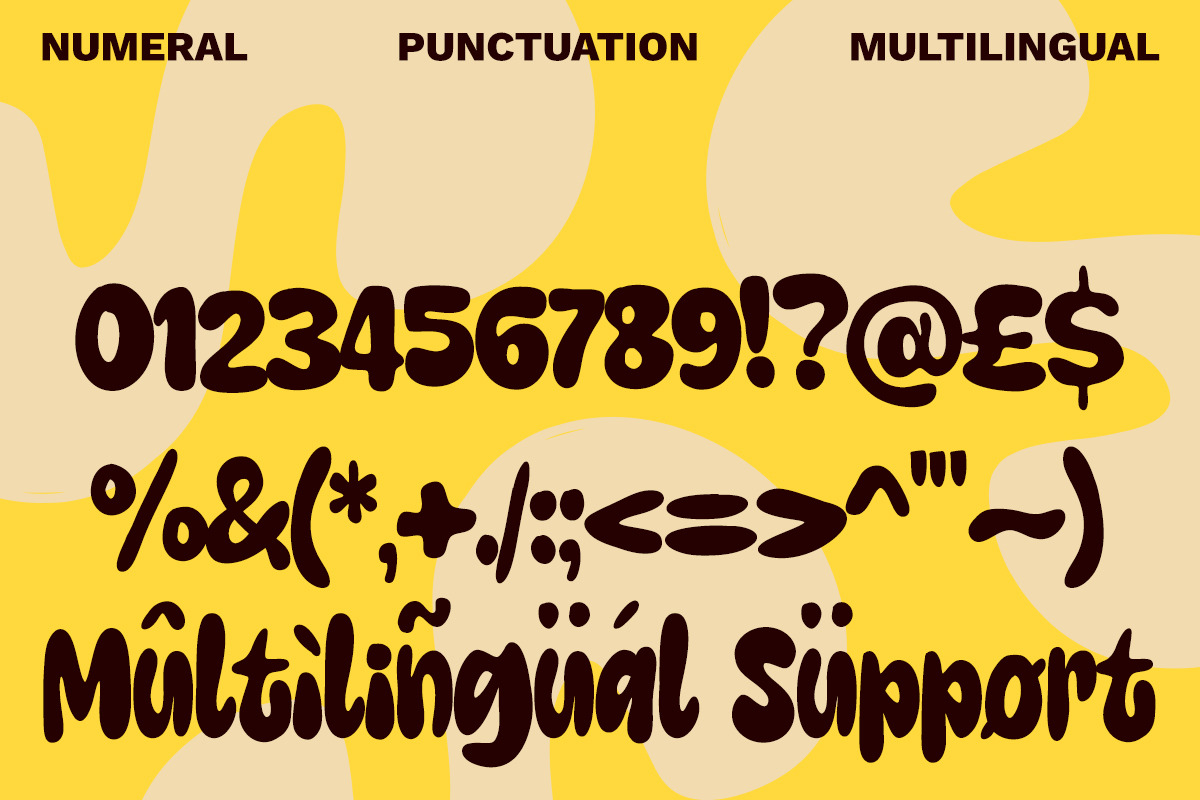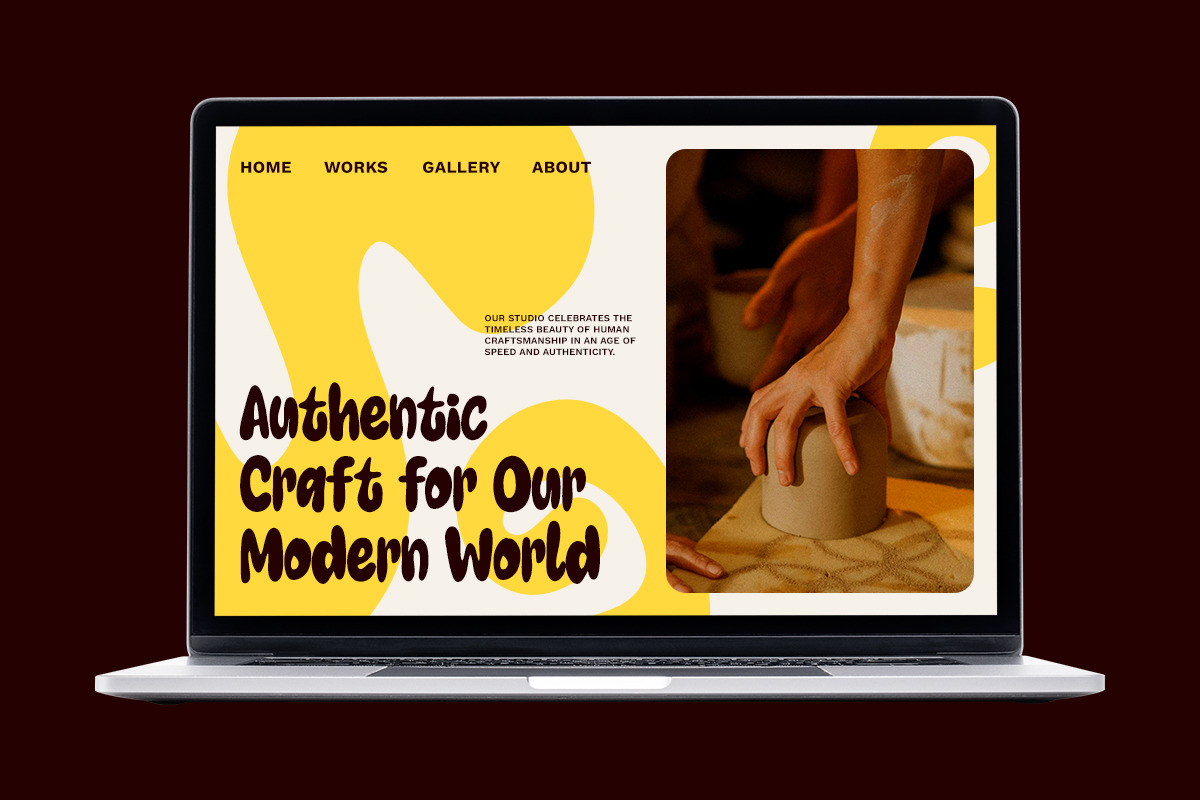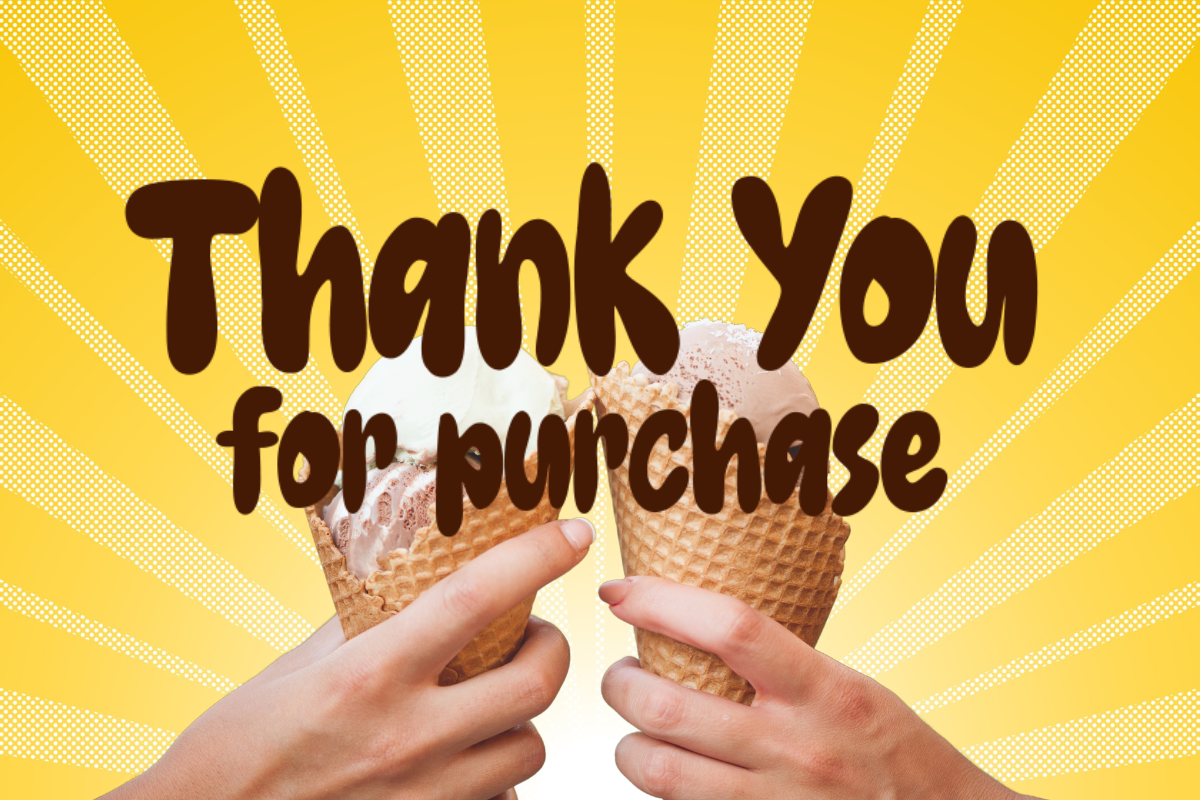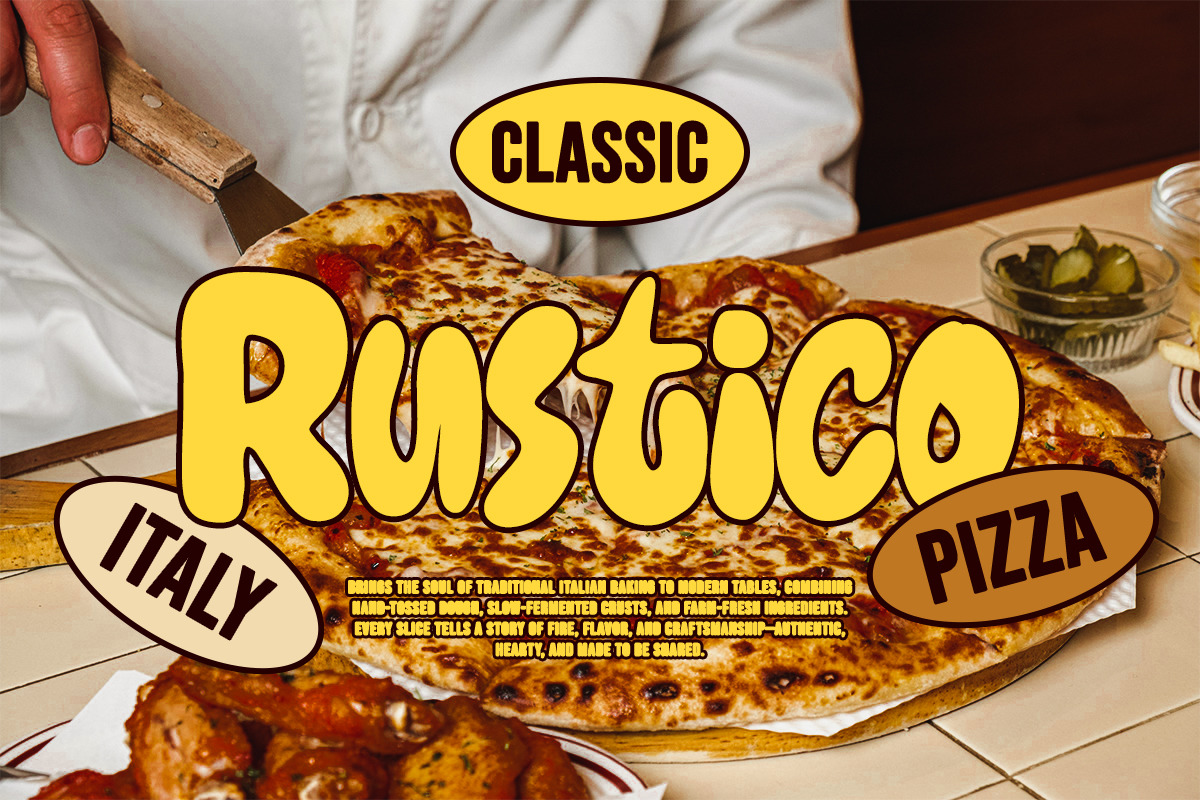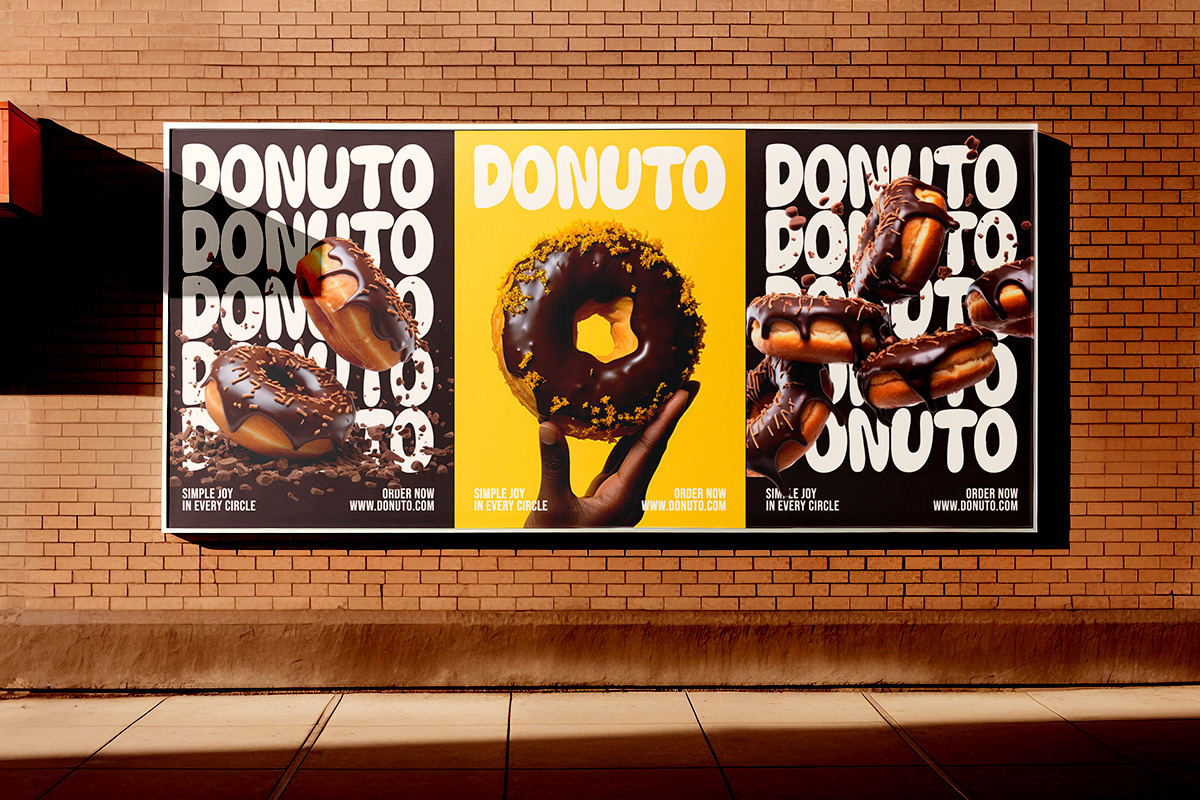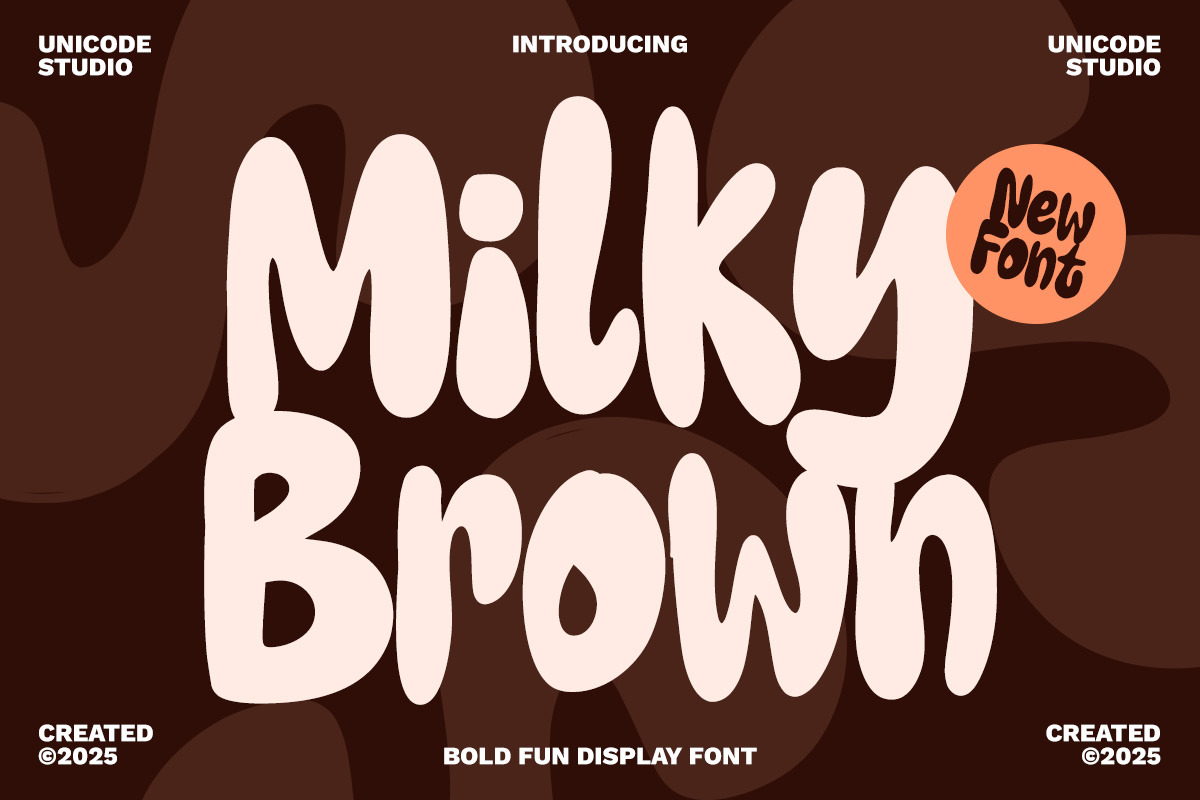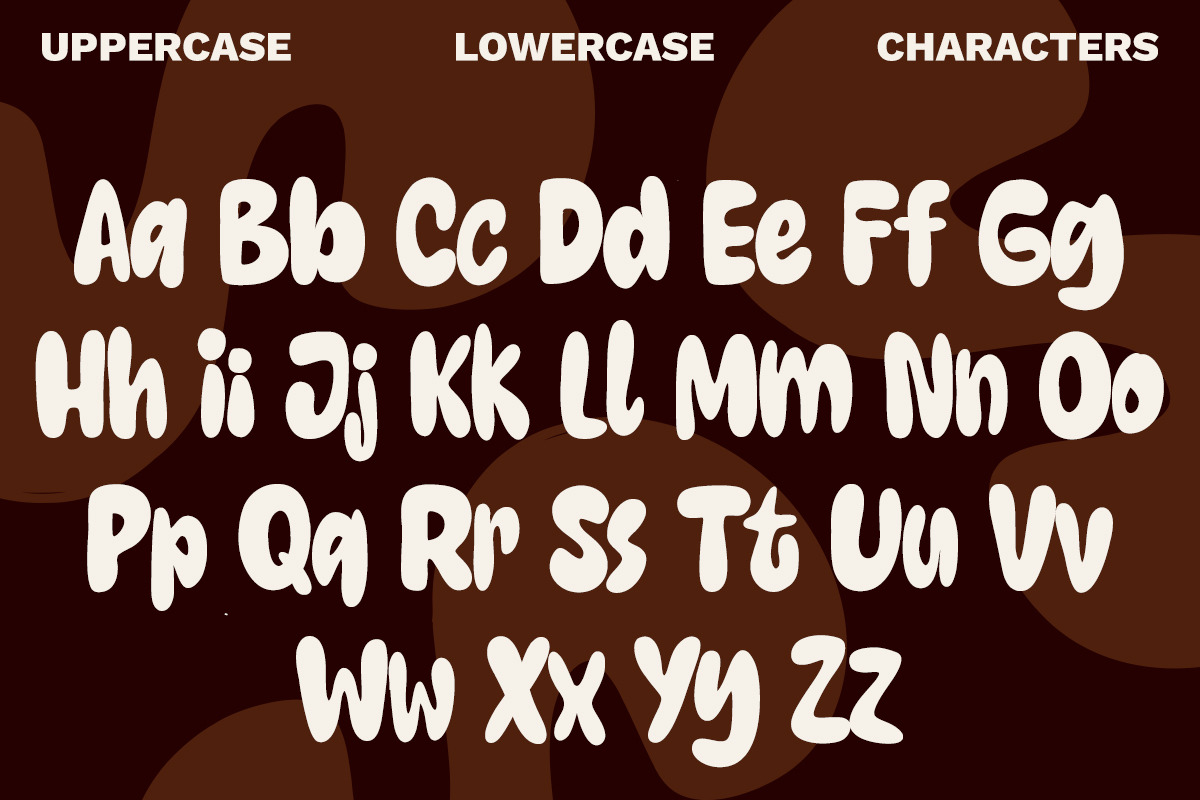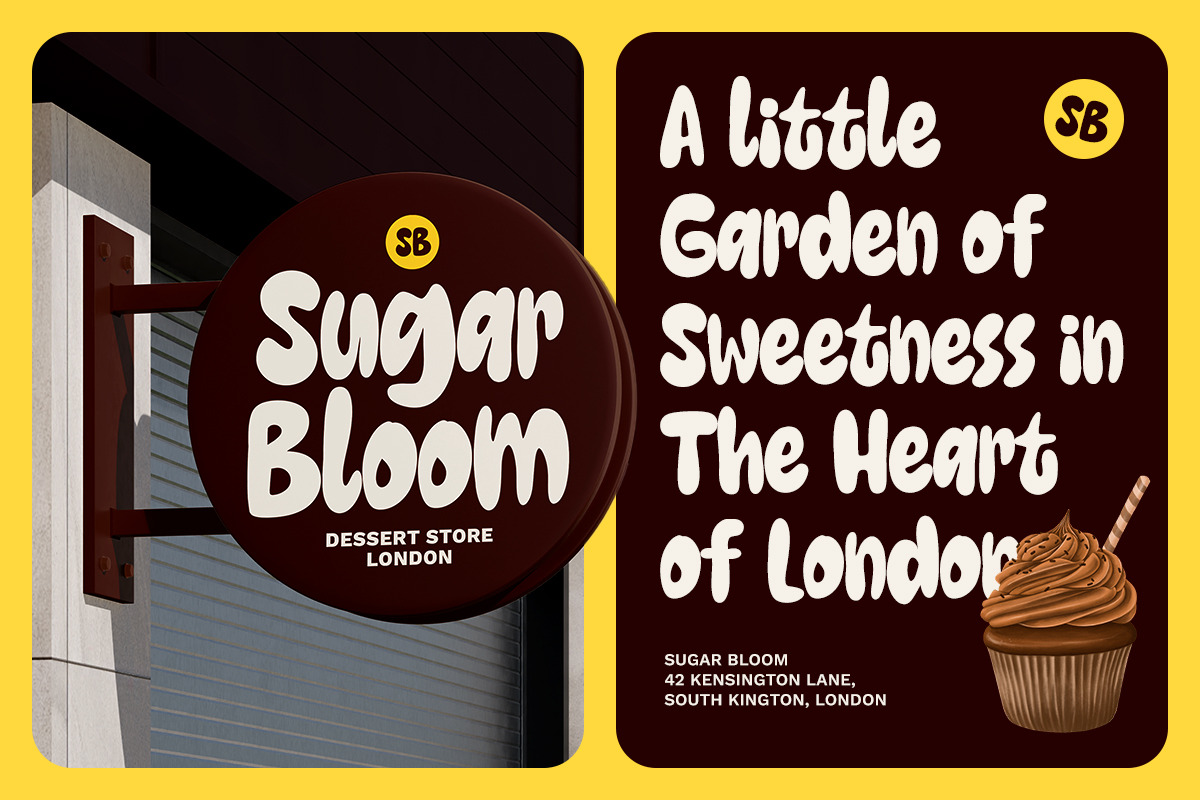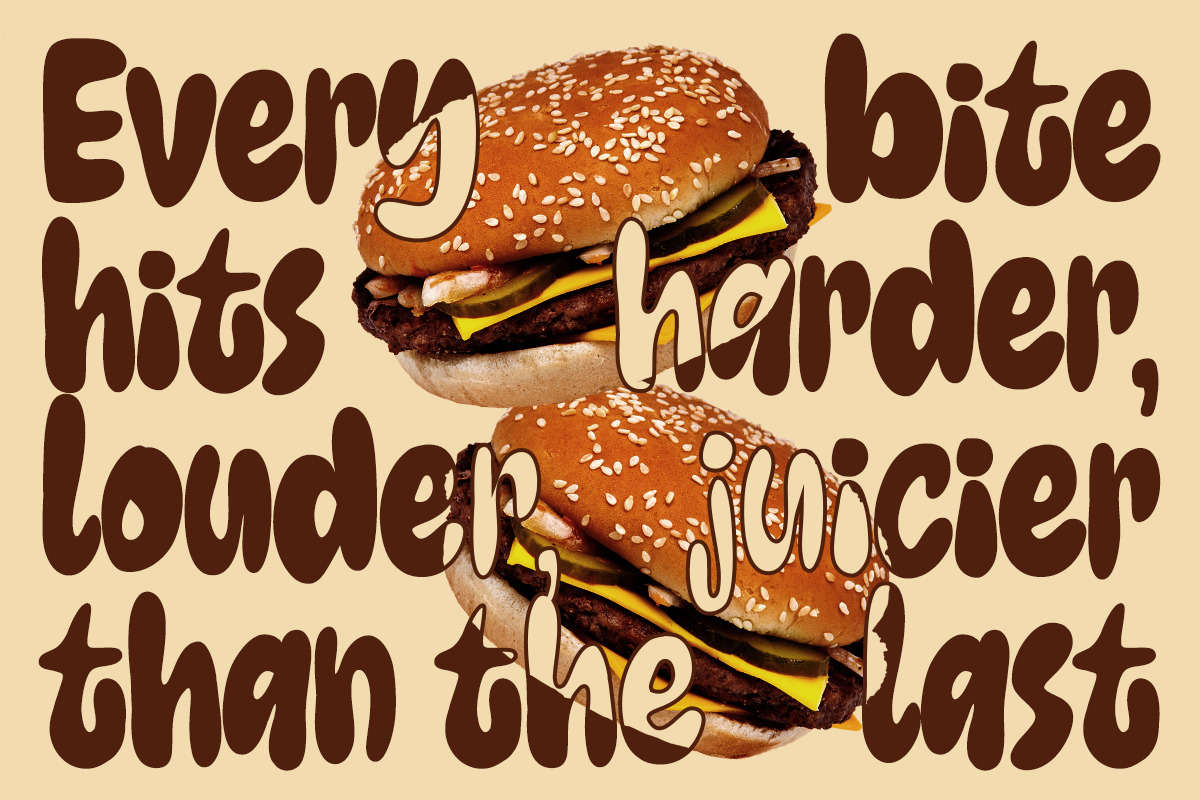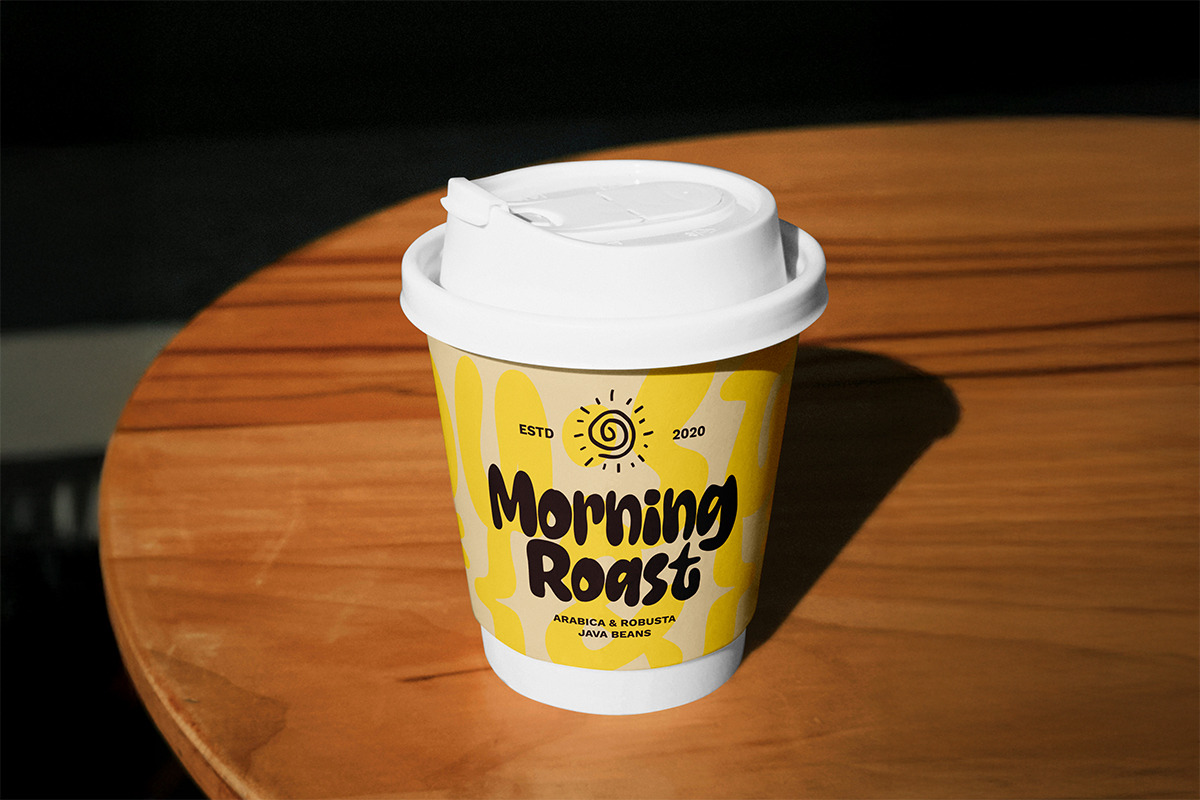
Milky Brown – Playful Display Font
Milky Brown – Bold Fun Playful Display Font
Milky Brown is a bold and playful display font designed with smooth, organic curves that bring a warm and friendly personality to any creative project. Its chunky and bubbly letterforms make it perfect for eye-catching titles, kids-related designs, packaging, branding, posters, and fun digital content. With a handcrafted feel and modern playful style, Milky Brown helps your design stand out with charm and high visual impact.
This font is easy to use across both print and digital projects, offering clean outlines and professional-quality vector shapes. Ideal for designers, creators, and brands looking for a joyful and approachable look.
- Kids branding & cute packaging
- Fun posters & social media graphics
- Product labels & merchandise
- Logo design & playful identities
- Event titles, stickers, quotes, and more
Bring joyful energy and creative personality to every design using Milky Brown!